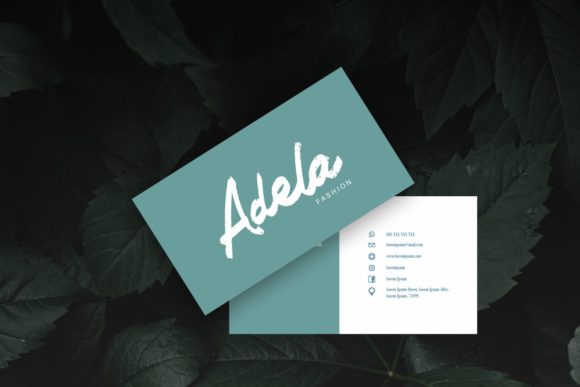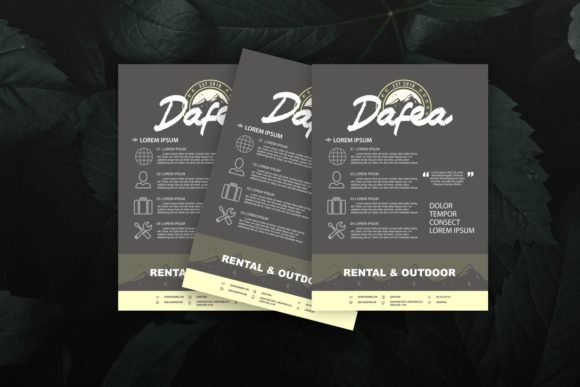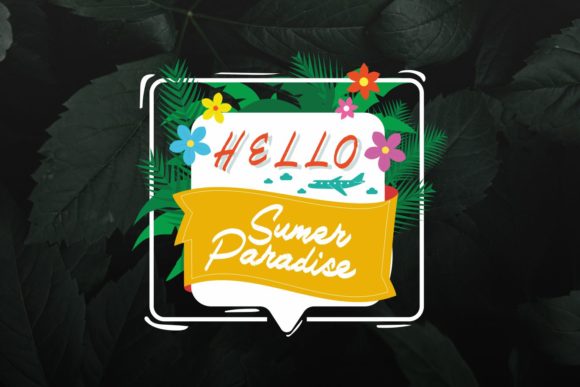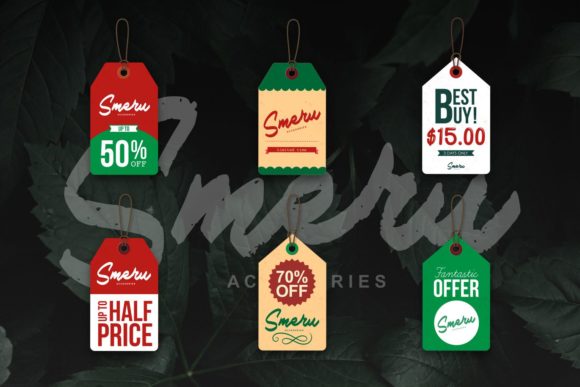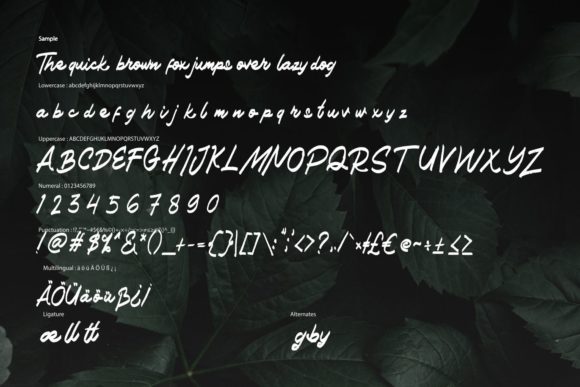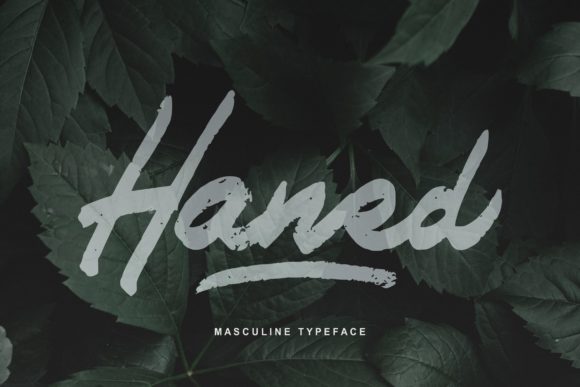
Discover the Unique Charm of Haned Font: A Strong and Cool Script Font
Are you tired of using the same old fonts in your designs? Look no further than Haned Font, a strong and cool script font that is sure to add a touch of elegance and sophistication to any project. With its unique style and charm, Haned Font is the perfect choice for designers and crafters looking to make a statement.
What is Haned Font?
Haned Font is a script font that boasts a distinctive and stylish design. Its strong and cool appearance makes it perfect for a wide range of applications, from branding and advertising to packaging and digital media. The font’s unique style is characterized by its flowing lines, elegant curves, and precise lettering, making it a standout choice for any design project.
The Unique Features of Haned Font
So, what sets Haned Font apart from other script fonts on the market? Here are just a few of its unique features:
- Strong and Cool Appearance: Haned Font has a bold and confident appearance that is sure to grab attention. Its strong lines and elegant curves make it perfect for headlines, titles, and other display text.
- Unique Lettering Style: The font’s lettering style is precise and elegant, with a focus on flowing lines and smooth curves. This makes it perfect for creating beautiful, hand-crafted text that adds a personal touch to any design.
- Highly Versatile: Haned Font is incredibly versatile, making it suitable for a wide range of applications and design projects. Whether you’re working on a logo, brochure, or website, this font is sure to impress.
How to Use Haned Font in Your Designs
Now that you know a little more about Haned Font, let’s explore some ways you can use it in your designs:
- Branding and Advertising: Use Haned Font to create bold and eye-catching headlines, titles, and taglines that showcase your brand’s personality and style.
- Packaging Design: Add a touch of elegance and sophistication to your packaging designs with Haned Font. Its unique style and charm make it perfect for product labels, packaging inserts, and more.
- Digital Media: Haned Font is also perfect for digital media, including websites, social media graphics, and email marketing campaigns. Its strong and cool appearance is sure to grab attention and make your content stand out.
Tips for Getting the Most Out of Haned Font
To get the most out of Haned Font, here are a few tips to keep in mind:
- Pair it with Other Fonts: Haned Font pairs well with a variety of other fonts, so don’t be afraid to get creative and try out different combinations.
- Use it to Create a Focal Point: Use Haned Font to create a focal point in your design, drawing attention to key messages or calls-to-action.
In conclusion, Haned Font is a strong and cool script font that is sure to add a touch of elegance and sophistication to any design project. With its unique style and charm, it’s the perfect choice for designers and crafters looking to make a statement. Whether you’re working on a branding campaign, packaging design, or digital media project, Haned Font is sure to inspire and impress.
So why wait? Get inspired by the unique charm of Haned Font and take your designs to the next level. With its strong and cool appearance, precise lettering, and highly versatile design, Haned Font is the perfect choice for any designer or crafter looking to create something truly special.